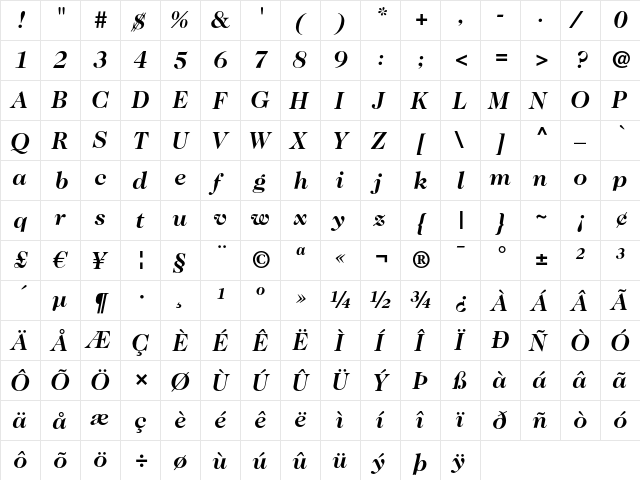
ITC Caslon 224 LT Bold Italic
Design Context for ITC Caslon 224 LT Typeface
ITC Caslon 224 LT is a composed and adaptable typeface that performs quietly and consistently across a wide range of design contexts. The dynamic lean of this cut emphasises speed and emphasis in any layout. The heavy weight commands attention and anchors typographic hierarchies.